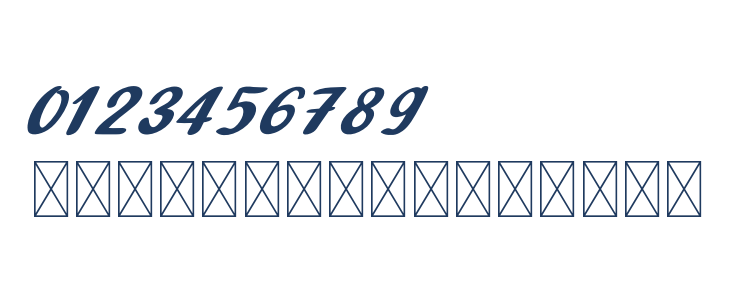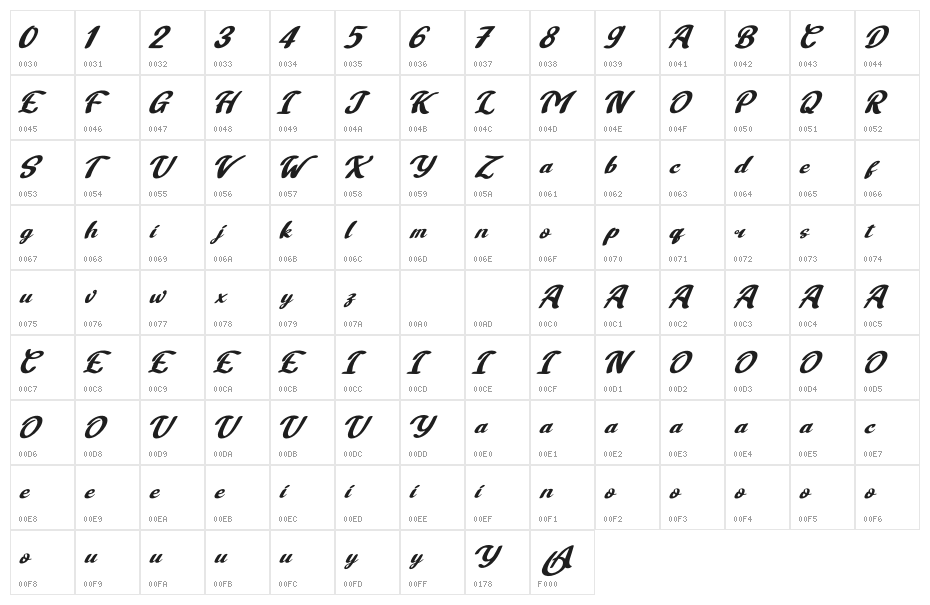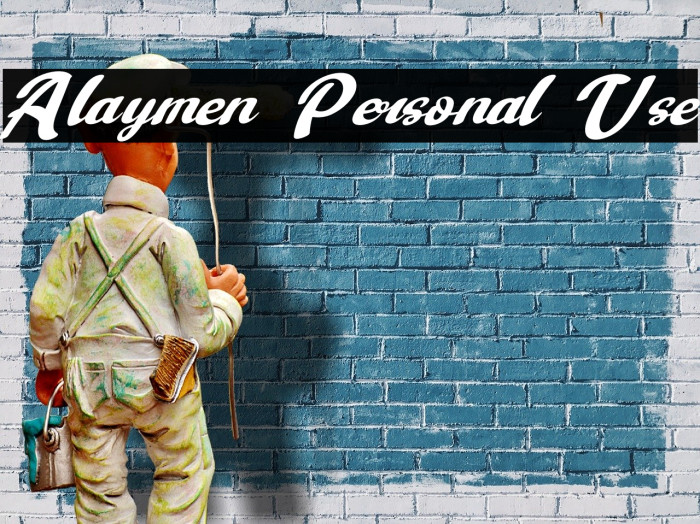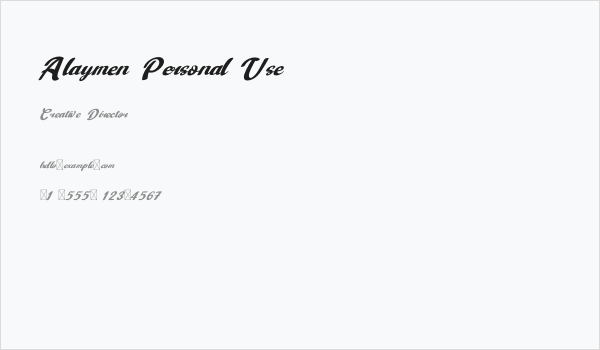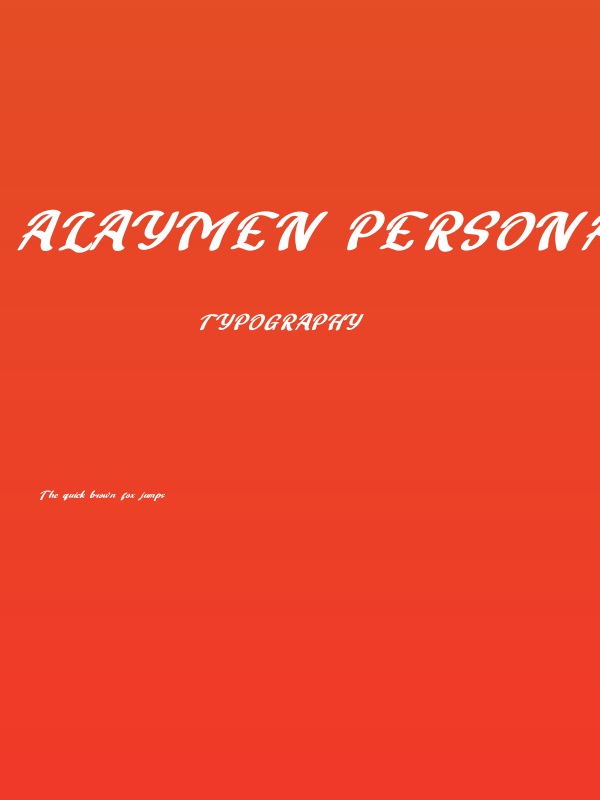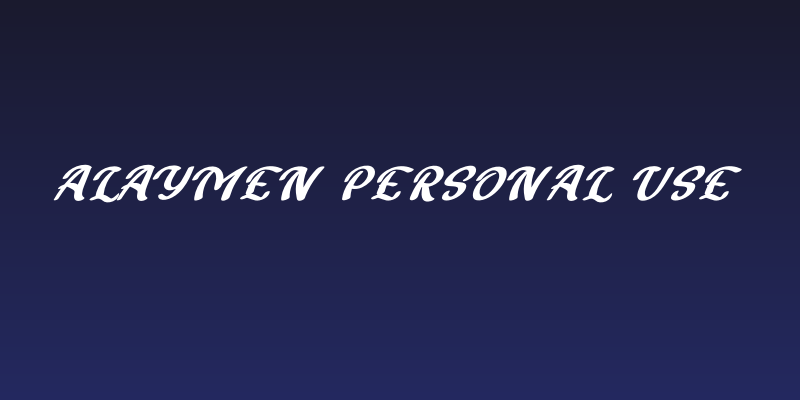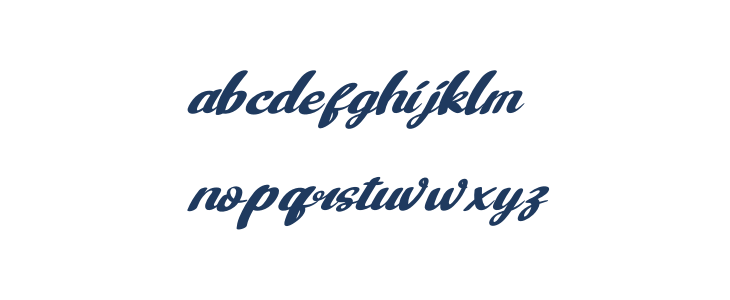
Alaymen Personal Use Font
Alaymen Personal Use Description
This font features a bold and flowing script style, characterized by its elegant and cursive letterforms. The uppercase letters are prominently designed with sweeping curves and a sense of motion, while the lowercase letters maintain a consistent style with slightly more compact forms. The numerals are crafted to match the overall aesthetic, providing a cohesive look. The font exudes a sense of sophistication and is well-suited for projects that require a touch of elegance and flair. Its bold weight and smooth curves make it ideal for creating impactful designs.
Overall StyleElegant
Use CaseLogos, Invitations, Branding
Proposed ProjectsIdeal for wedding invitations, branding, logos, and elegant packaging designs.